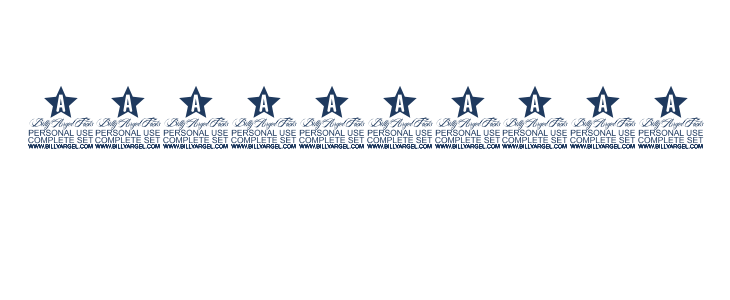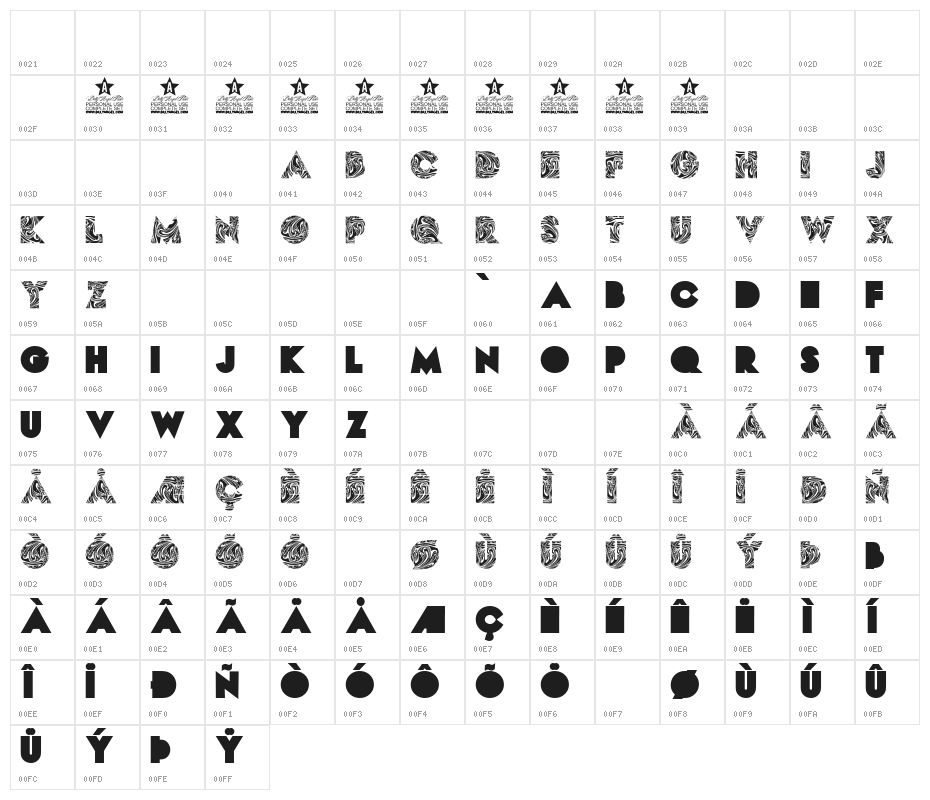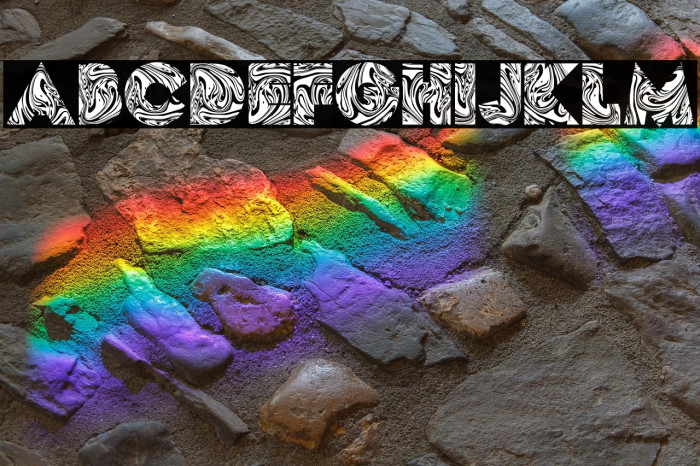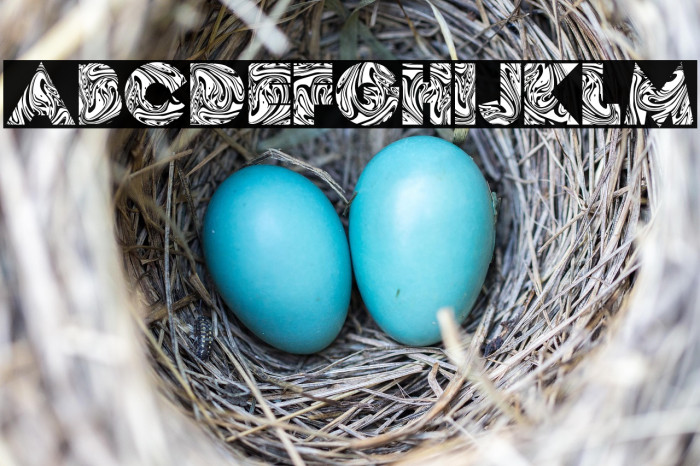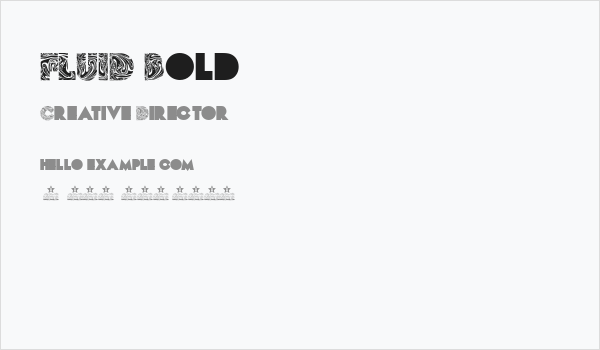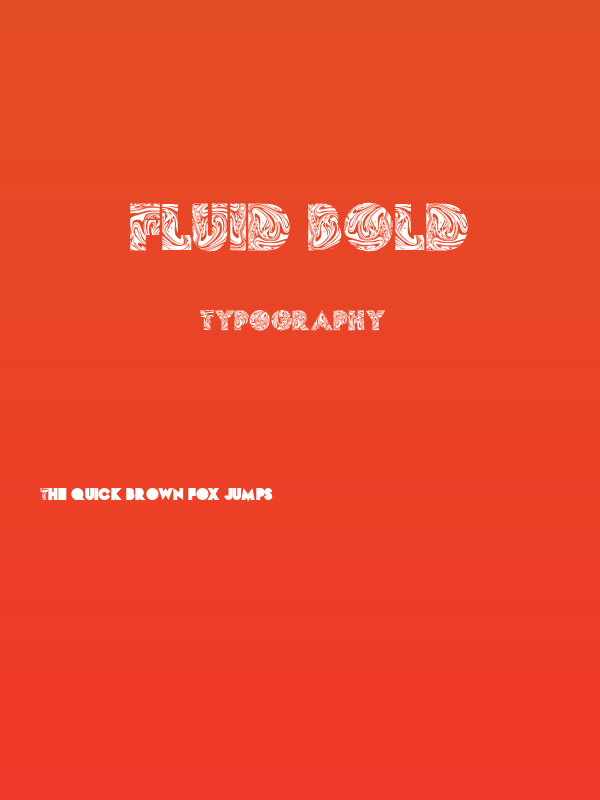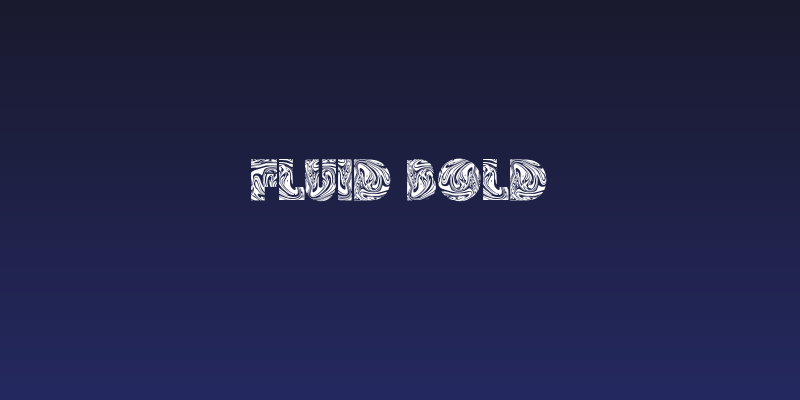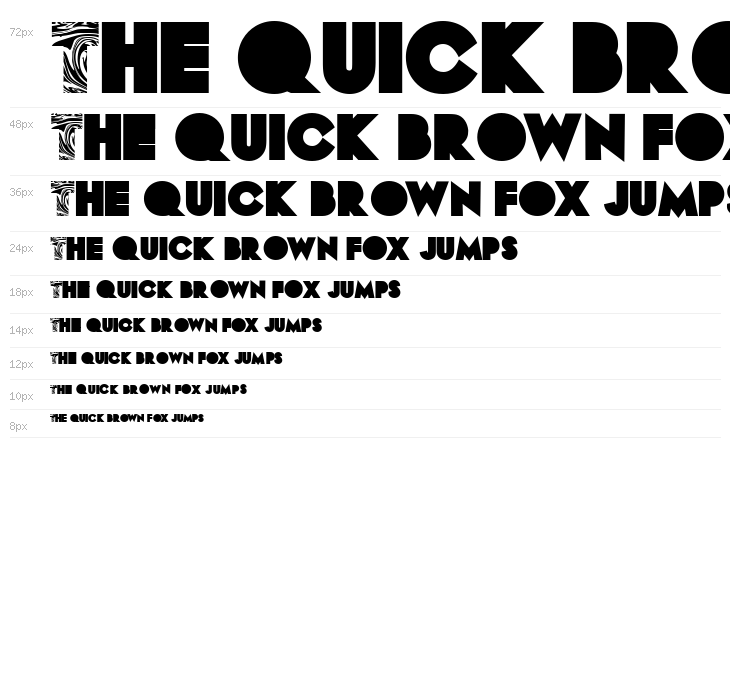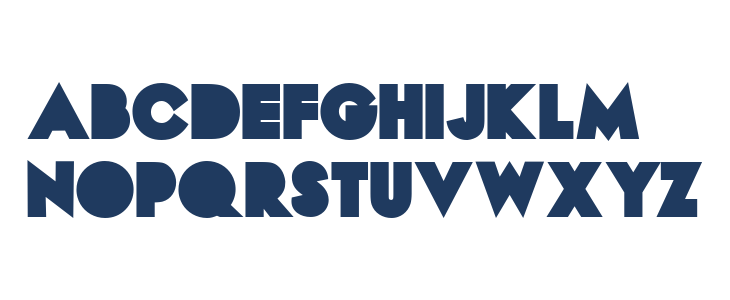
FLUID Bold Font
✎ Decorative
FLUID Bold Description
This font features a bold and striking design with a strong presence. The uppercase letters are characterized by thick, solid strokes that create a sense of stability and power. The unique pattern within each letter adds a decorative flair, making it stand out for creative projects. The font's boldness is consistent across all characters, providing a cohesive look. Its design is particularly suitable for attention-grabbing headlines or titles where impact is essential. The overall style is modern with a touch of artistic expression, making it versatile for various design needs.
| Overall Style | Modern, Artistic |
| Proposed Projects | Ideal for posters, logos, branding, and any design requiring a bold statement. |